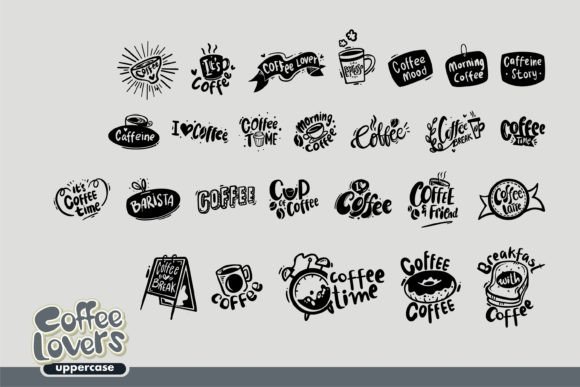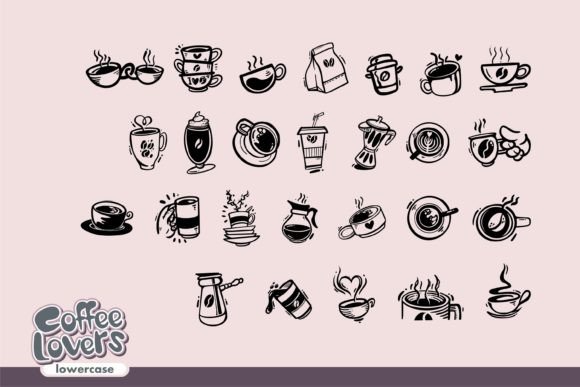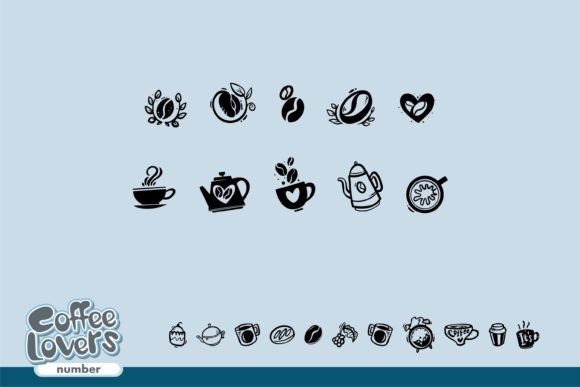
Cofee Lovers Font: The Ultimate Dingbats Font for Designers and Crafters
Are you a designer, crafter, or DIY enthusiast looking for a unique and versatile font to elevate your creative projects? Look no further than Cofee Lovers Font, a specially designed dingbats font that’s perfect for a wide range of applications. In this article, we’ll explore the features and benefits of Cofee Lovers Font, and why it’s about to become your new favorite go-to font.
What is Cofee Lovers Font?
Cofee Lovers Font is a uniquely designed dingbats font that offers a fresh and exciting way to add visual interest to your designs. Dingbats fonts, also known as symbol fonts, are a type of font that features graphical symbols, such as icons, shapes, and illustrations, rather than traditional letterforms. Cofee Lovers Font takes this concept to the next level with its carefully crafted set of coffee-themed icons, illustrations, and graphics.
Key Features of Cofee Lovers Font
- Unique and Quirky Designs: Cofee Lovers Font features a wide range of coffee-themed illustrations, from coffee cups and saucers to coffee beans, hearts, and stars. Each design is carefully crafted to be both visually appealing and highly versatile.
- Highly Versatile: This font is suitable for a wide range of design applications, including crafts, digital design, presentations, greeting cards, children’s books, and social media posts.
- Scalable: The font is highly scalable, making it perfect for use in a variety of formats, from small icons to large posters.
Use Cases for Cofee Lovers Font
Cofee Lovers Font is an incredibly versatile font that can be used in a wide range of design applications. Here are just a few ideas to get you started:
- Crafts: Use Cofee Lovers Font to add a personal touch to your craft projects, such as scrapbooking, card making, and DIY gifts.
- Digital Design: Add a touch of whimsy to your digital designs, such as social media graphics, blog posts, and email newsletters.
- Presentations: Use Cofee Lovers Font to add visual interest to your presentations, making them more engaging and memorable.
- Greeting Cards: Create custom greeting cards for special occasions, such as birthdays, holidays, and weddings.
- Children’s Books: Cofee Lovers Font is perfect for illustrating children’s books, adding a touch of magic and wonder to your story.
- Social Media Posts: Use Cofee Lovers Font to create eye-catching social media posts that stand out from the crowd.
Benefits of Using Cofee Lovers Font
So why choose Cofee Lovers Font over other dingbats fonts? Here are just a few benefits:
- Save Time: With Cofee Lovers Font, you can quickly and easily add visual interest to your designs, saving you time and effort.
- Stand Out: The unique and quirky designs in Cofee Lovers Font will help your designs stand out from the crowd, making them more memorable and engaging.
- Easy to Use: The font is incredibly easy to use, even for those with limited design experience.
| Font Name | Cofee Lovers Font |
In conclusion, Cofee Lovers Font is a uniquely designed dingbats font that’s perfect for designers, crafters, and DIY enthusiasts. With its wide range of coffee-themed illustrations, highly versatile design, and ease of use, it’s an ideal solution for a wide range of design applications. Whether you’re creating crafts, digital designs, presentations, greeting cards, children’s books, or social media posts, Cofee Lovers Font is sure to become your new favorite go-to font.